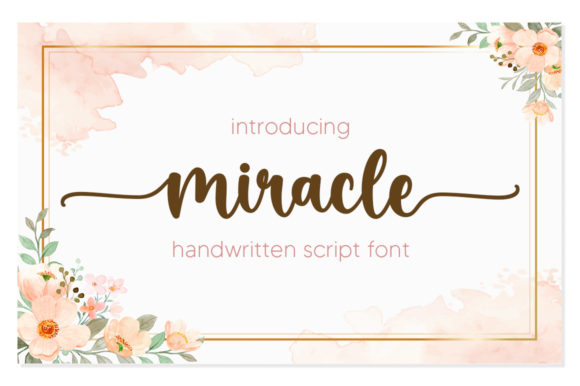
Unleash the allure of your wedding invitations, branding designs, and social media posts with Miracle Font - a beacon of sophistication and grace. Its delicate strokes, like whispers of elegance, dance across your creations, enchanting the digital realm with an air of timeless beauty.
Journey into a realm of design possibilities with Miracle's stylish alternates and ligatures. Effortlessly craft breathtaking monograms, heartfelt quotes, and captivating headlines that resonate with your audience. This font is your artistic muse, guiding you to create visual masterpieces that leave an indelible mark.
Miracle's PUA encoding opens up a world of creative potential. With effortless ease, access a symphony of glyphs and swashes, unleashing a boundless tapestry of design elements. Elevate your projects to new heights of artistry, creating designs that captivate and inspire.
Indulge in the captivating charm of Miracle Font, a masterpiece meticulously crafted by Graphix Line Studio. Let your creativity soar as you explore the endless possibilities it presents. Embrace the magic of Miracle and transform your designs into captivating expressions of beauty and elegance.